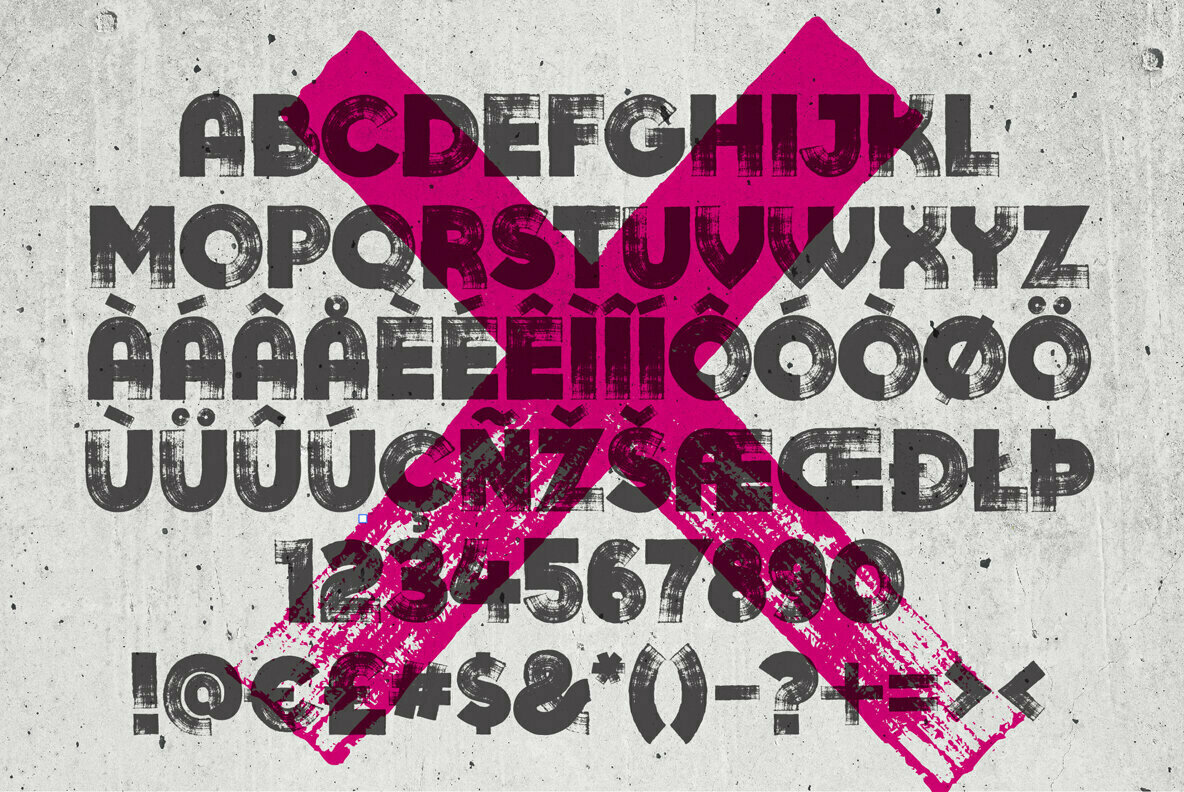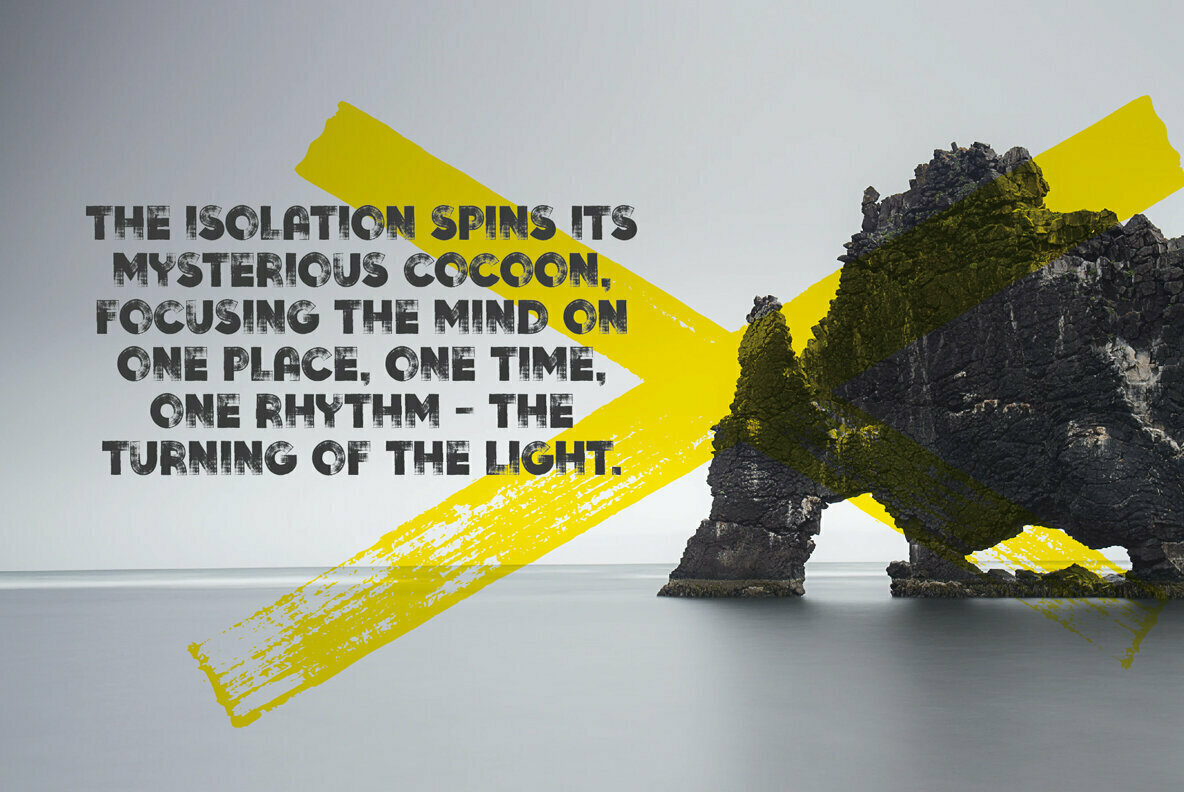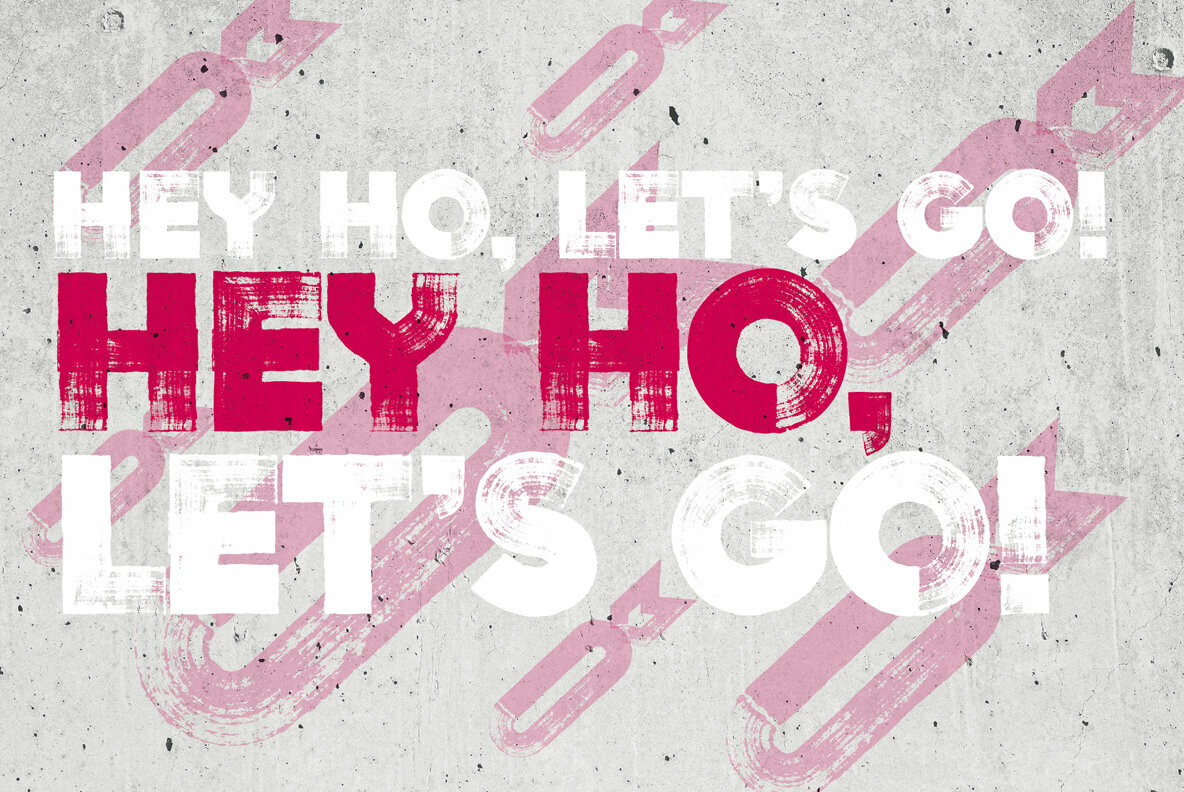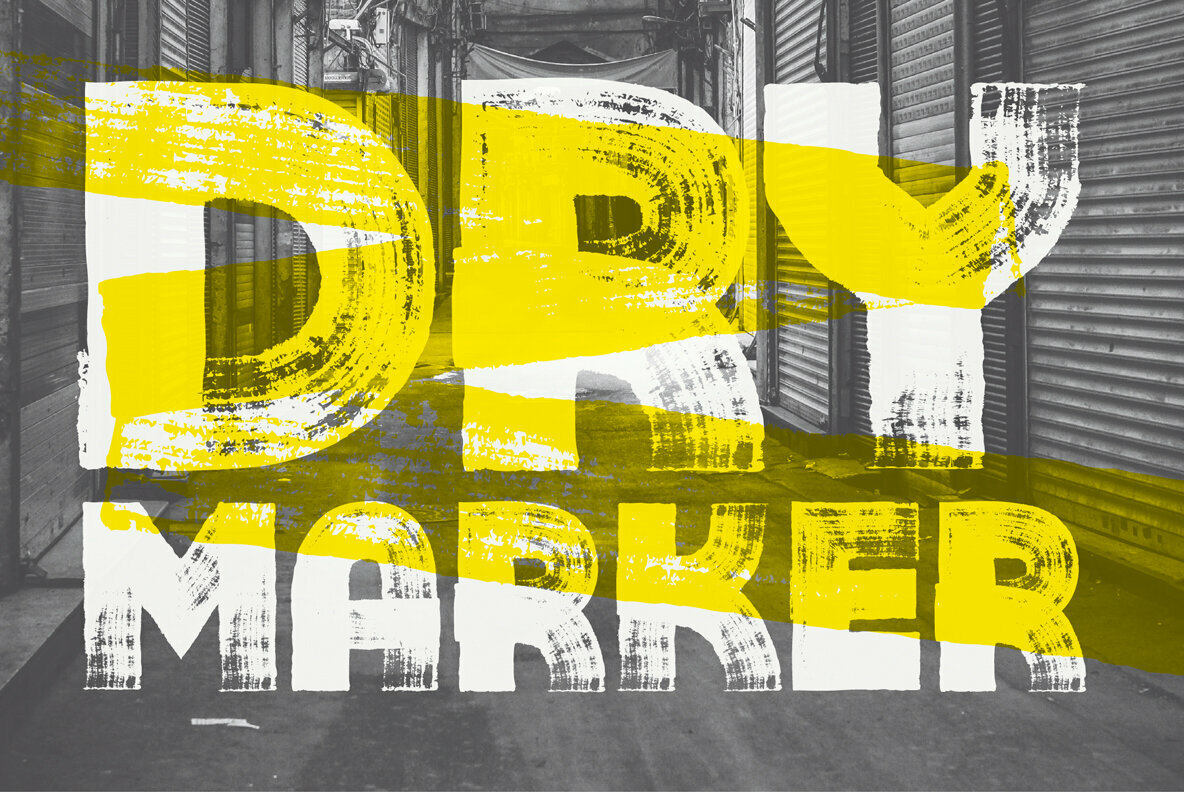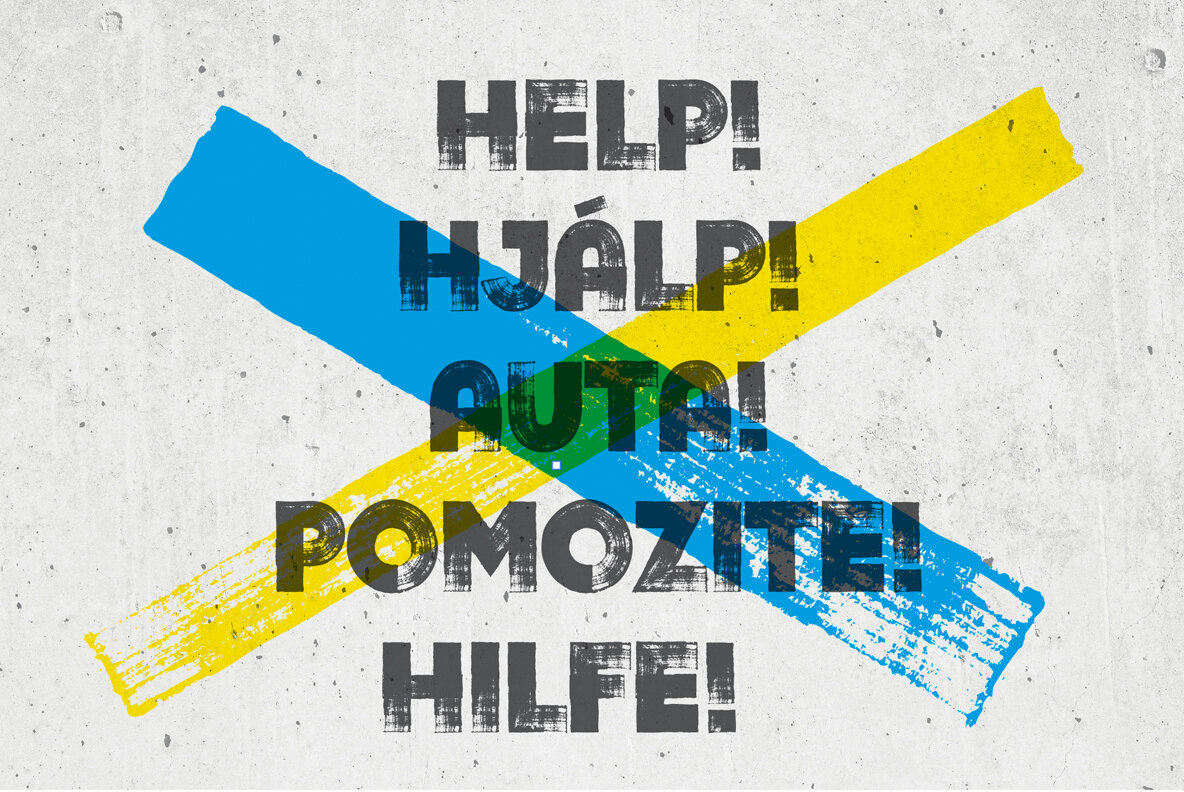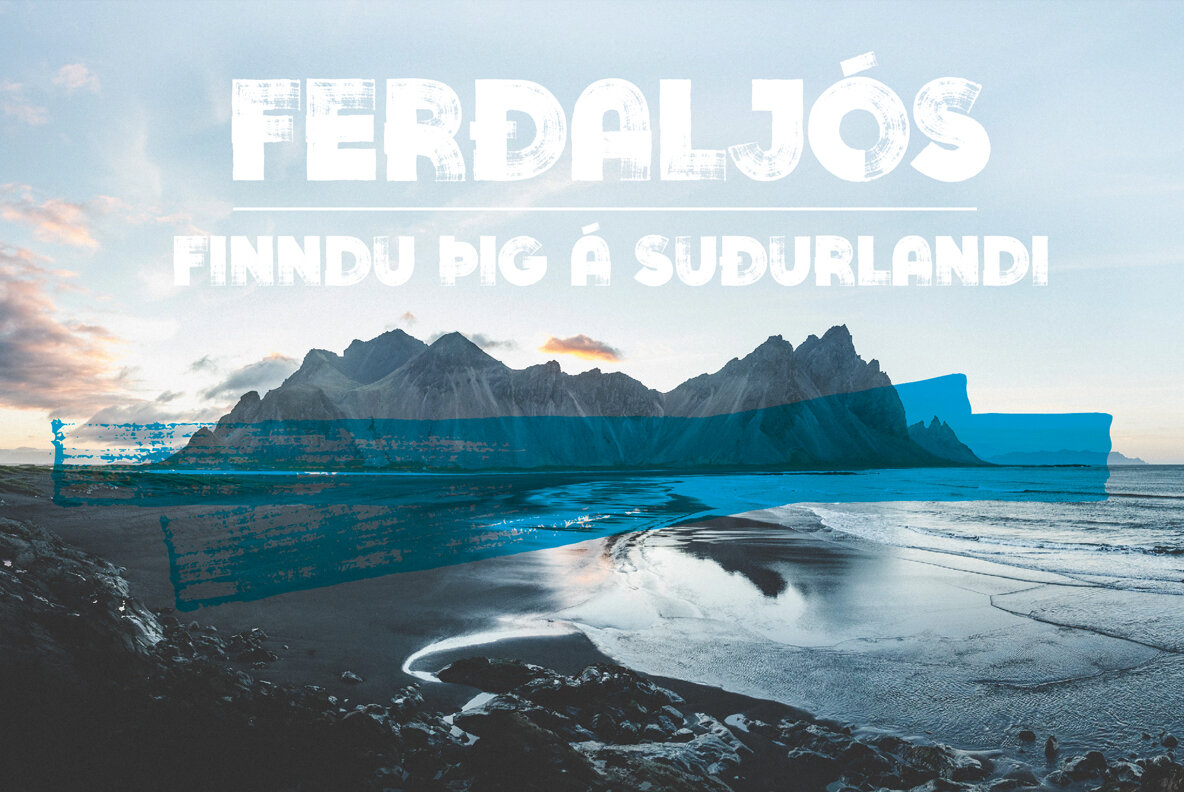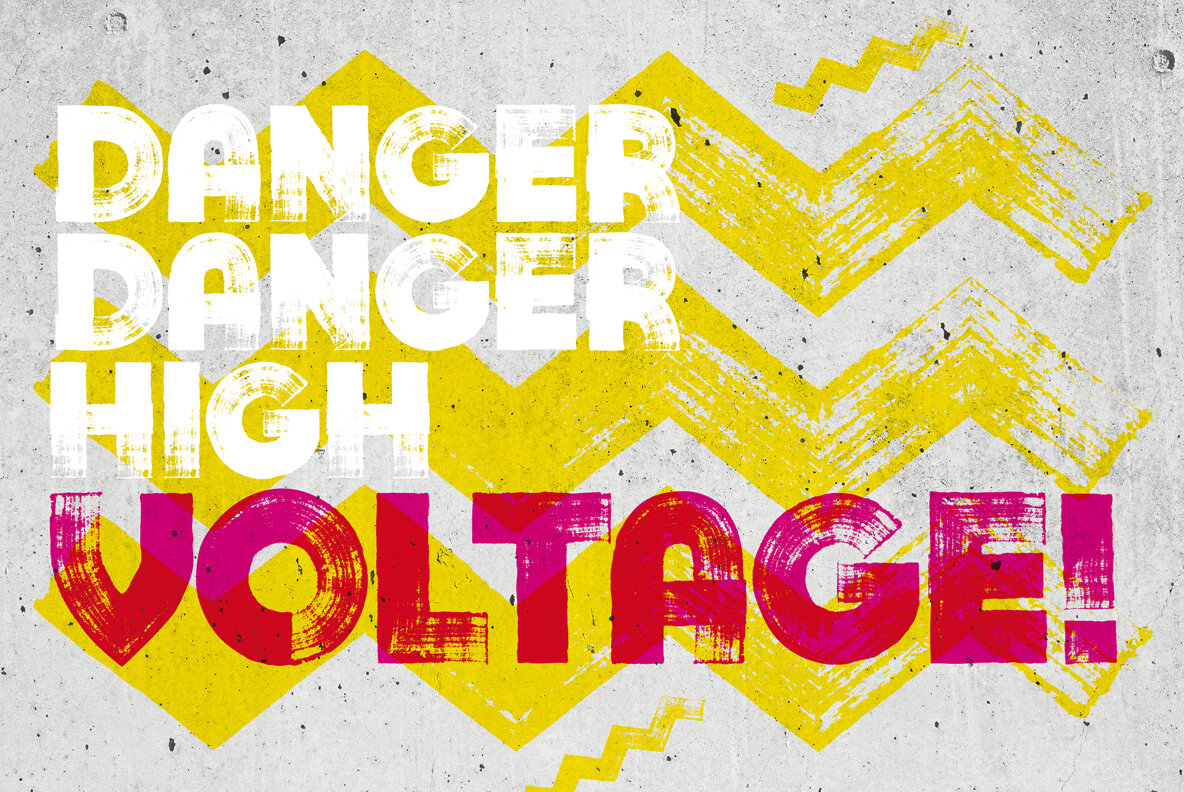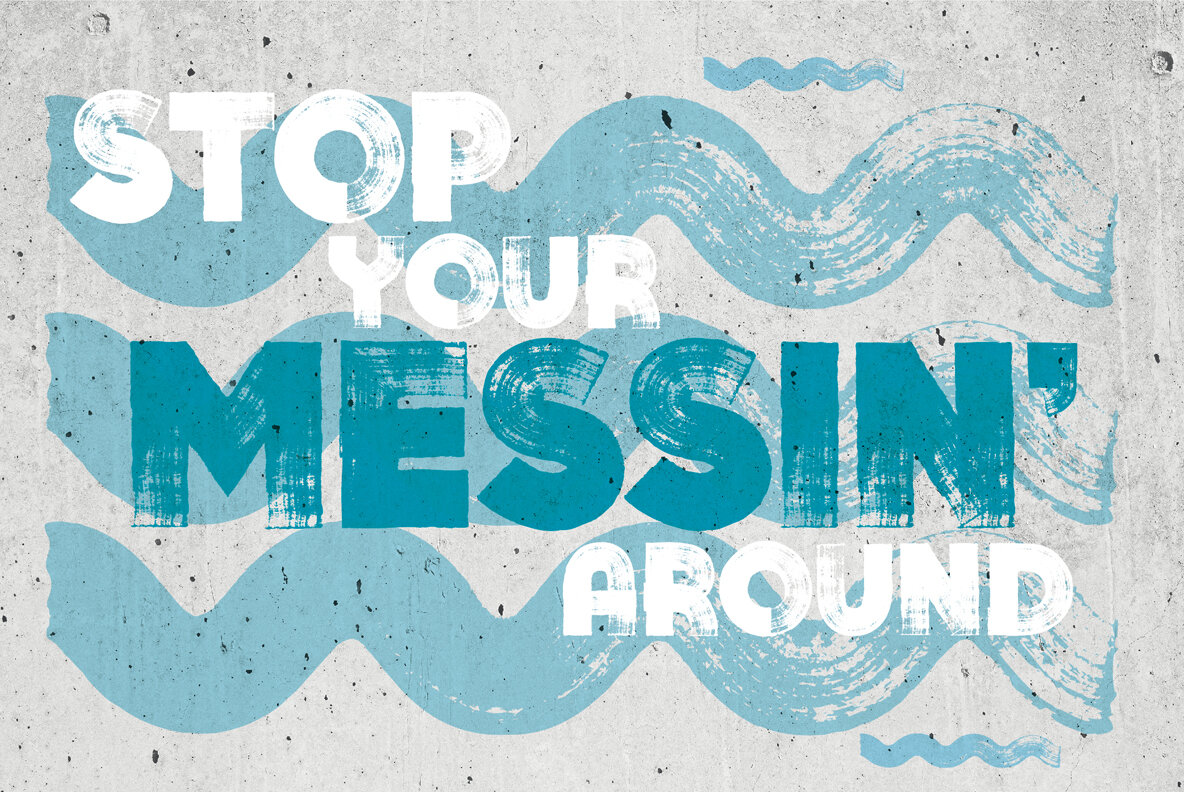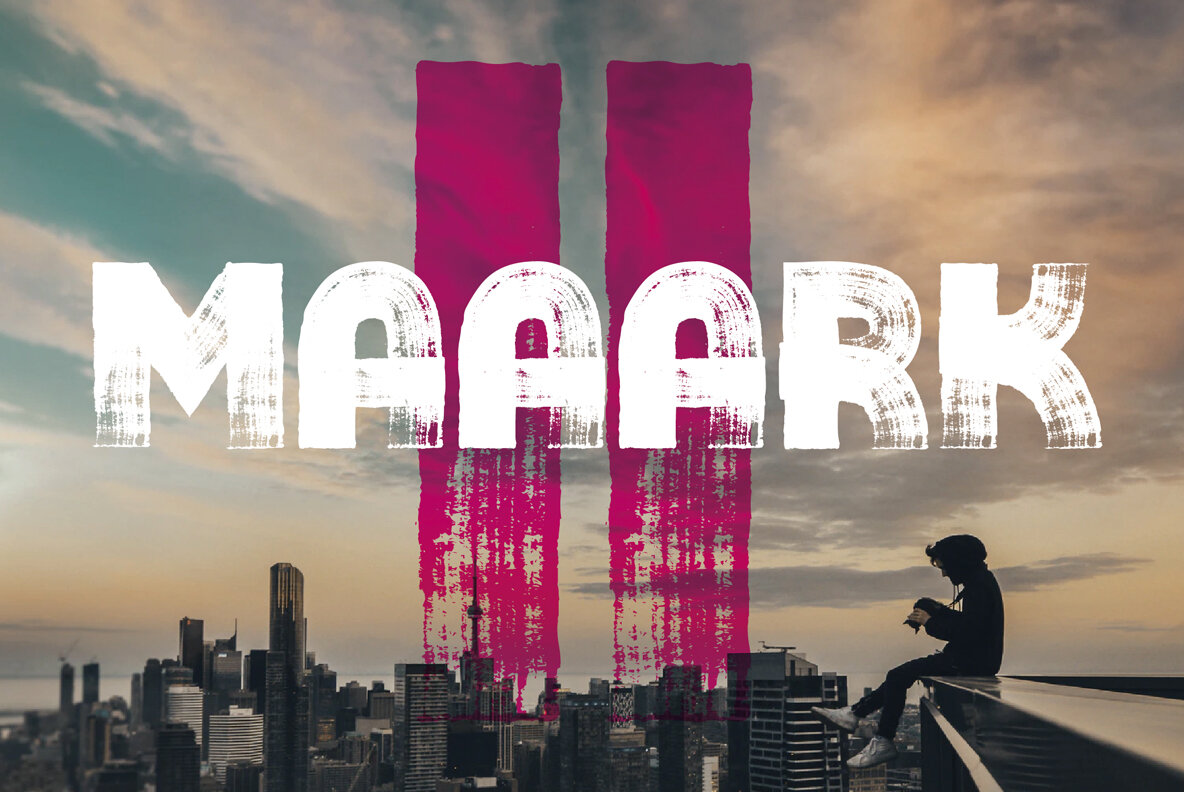
Maaark 2 Font
Maaarka 2 Regular
Maaark 2 is a bolder version of Maaarka, it's super cool, super dry, marker style font. It's super detailed, so it will still look good on your super massive projects. Make your maaark with some grafitti, protest posters or a fashion magazine spread... Maaark 2's a super unique font that will always grab attention!